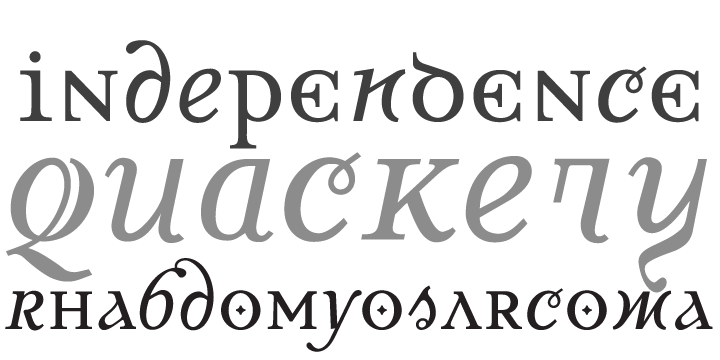
Brogue Font is perfect for Irish pub branding, Celtic festival posters, traditional whiskey labels, heritage brand identity, folk music album covers, cultural event signage, artisan craft packaging, historic tour materials, Celtic jewelry branding, and authentic storytelling projects.
What makes Brogue Font exciting is its rich Celtic heritage and authentic Irish character that transports audiences to the mystical landscapes and ancient traditions of Ireland. This distinctive typeface features letterforms inspired by traditional Gaelic calligraphy with subtle decorative elements that capture the essence of Celtic culture and storytelling. The font's organic curves and historic character make it perfect for brands seeking to convey authenticity, tradition, and the timeless spirit of Irish craftsmanship.
The Brogue Font family includes traditional Celtic variations: Regular, Bold, Light, Condensed, Decorative, and Ornamental versions. Each style maintains the core Gaelic aesthetic while offering different levels of decorative detail and functionality. The complete family provides designers with comprehensive tools for creating authentic, culturally rich visual communications that honor Celtic traditions while appealing to contemporary audiences.
When your project needs authentic Celtic charm and Irish heritage appeal, Brogue Font Free Download is the perfect choice. This remarkable typeface transforms modern communications into timeless expressions of Celtic culture that resonate with audiences seeking authenticity and tradition. Its versatile nature makes it ideal for both cultural institutions and commercial applications celebrating Irish heritage. Download Brogue Font today and connect with Celtic tradition through this exceptional typeface that perfectly captures Irish cultural identity and ancient storytelling wisdom.